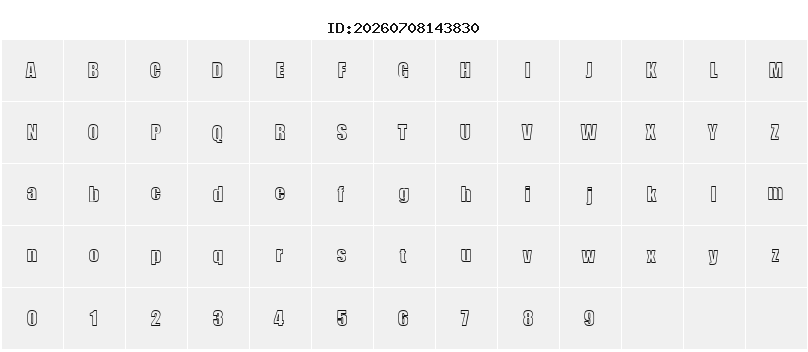
DSU_SiRin Hollow Preview
• Font Name: DSU_SiRin Hollow
• Font ID: Windows 95 - DSU_SiRin Hollow
• Full Font Name: DSU_SiRin Hollow
• Version: Version 2.1 - January 1998
• PostScript Name: DSUSiRinHollow
• Character Count: 225
About DSU_SiRin Hollow.ttf
DSU_SiRin Hollow.ttf is a modern, elegant sans-serif font designed for ultimate readability and visual harmony. Perfect for branding, headlines, web design, and print materials.